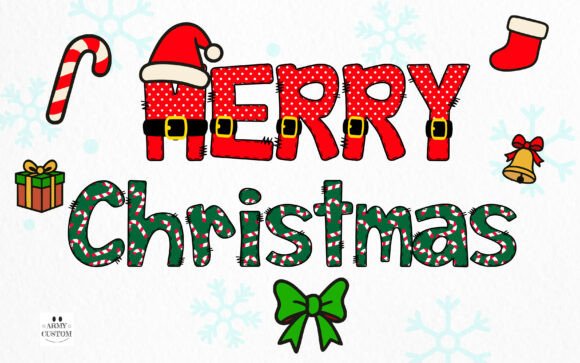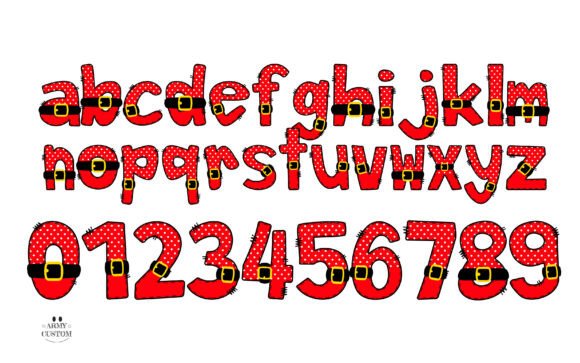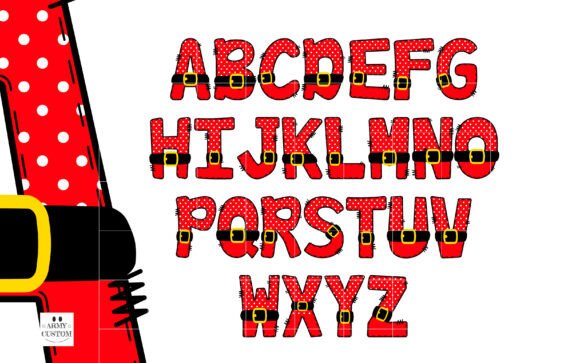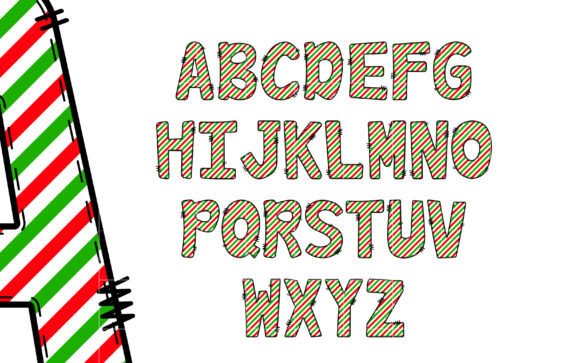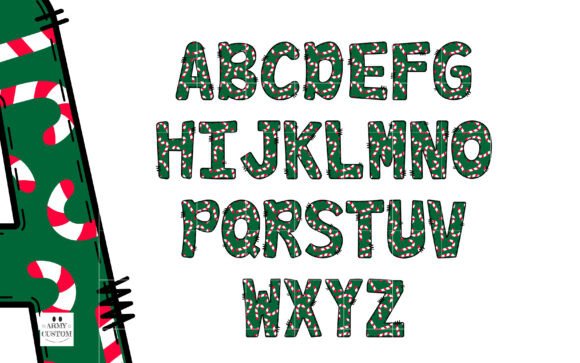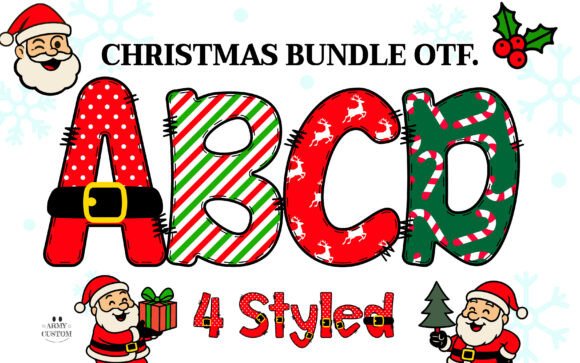
Introducing the Christmas Bundle Font: A Whimsical Addition to Your Holiday Design Toolkit
Are you looking for a font that captures the essence of the holiday season? Look no further than the Christmas Bundle Font, a playful and vibrant color font that’s sure to add a dash of merriment to any design project. Imbued with a sense of whimsy, this font is inspired by the adorable antics of Santa’s helpers, making it an ideal choice for creating holiday decorations, greeting cards, and other festive designs.
A Font that’s Full of Holiday Cheer
The Christmas Bundle Font, also known as the Christmas Elf Font, is a jovial font that’s designed to bring joy and festivity to your designs. With its elfish style, every letter spelled out becomes a joyous celebration, perfect for adding a touch of holiday magic to your projects. Whether you’re a designer, crafter, or DIY enthusiast, this font is sure to become a favorite in your holiday design toolkit.
- Unique and playful style: The Christmas Elf Font has a unique and playful style that’s sure to stand out in your designs.
- Holiday cheer: This font is designed to capture the essence of the holiday season, making it perfect for creating festive designs.
Design Ideas Using the Christmas Bundle Font
The Christmas Bundle Font is a versatile font that can be used in a range of design projects, including:
- Holiday greeting cards: Create festive greeting cards for friends and family using the Christmas Elf Font.
- Holiday decorations: Use the font to create vibrant holiday decorations, such as garlands, banners, and signs.
- Social media graphics: Add a touch of holiday cheer to your social media graphics, such as Facebook posts and Instagram stories.
- Digital papers: Create digital papers using the Christmas Bundle Font, perfect for scrapbooking and other paper crafting projects.
- Experiment with colors: The Christmas Elf Font comes in a range of colors, so don’t be afraid to experiment and find the perfect combination for your design.
The Christmas Bundle Font is a playful and vibrant color font that’s sure to add a dash of holiday cheer to any design project. With its unique and playful style, compatibility with a range of software, and ease of use, it’s the perfect addition to your holiday design toolkit. So why not give it a try and see how it can bring some festive fun to your designs?